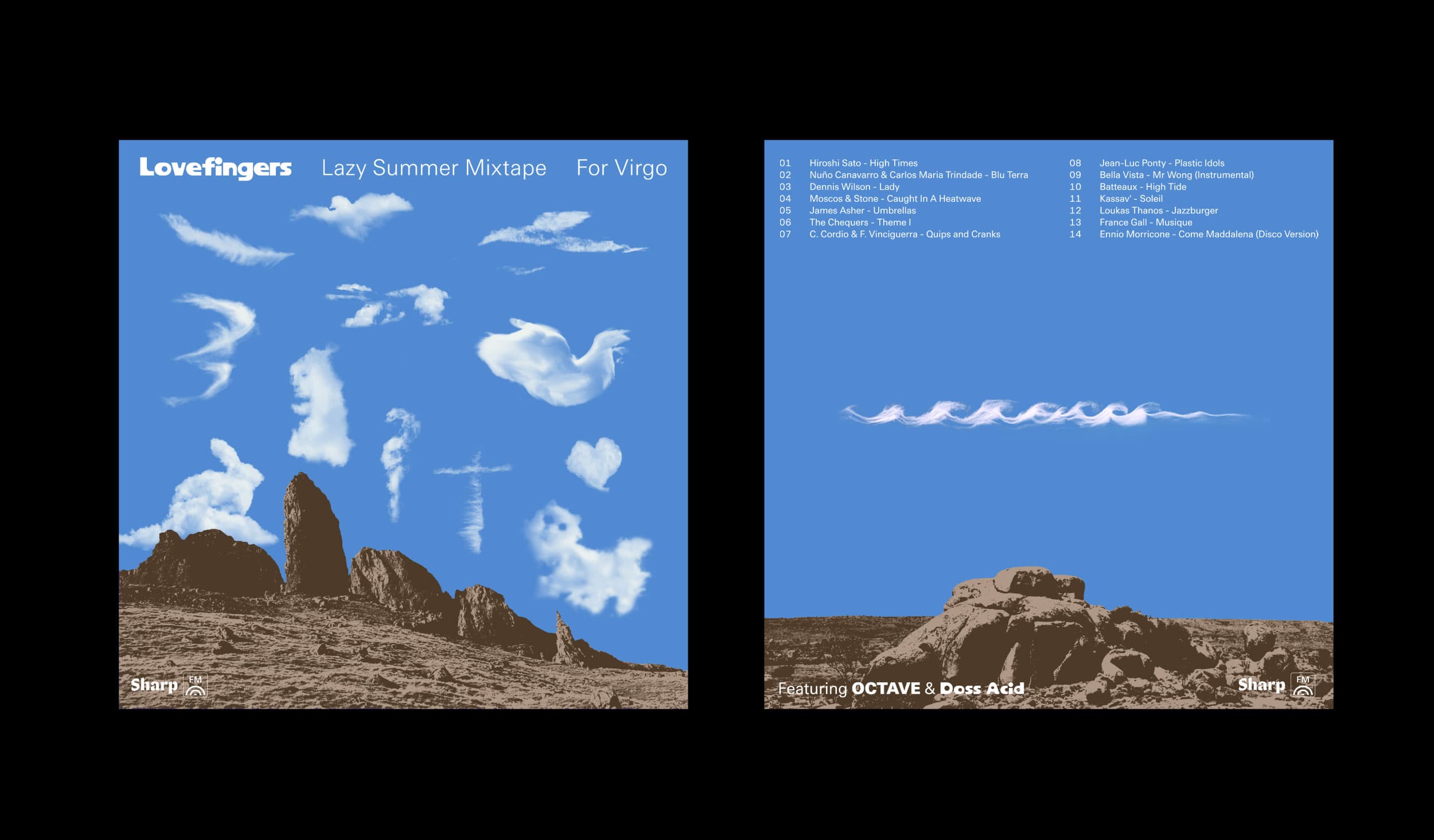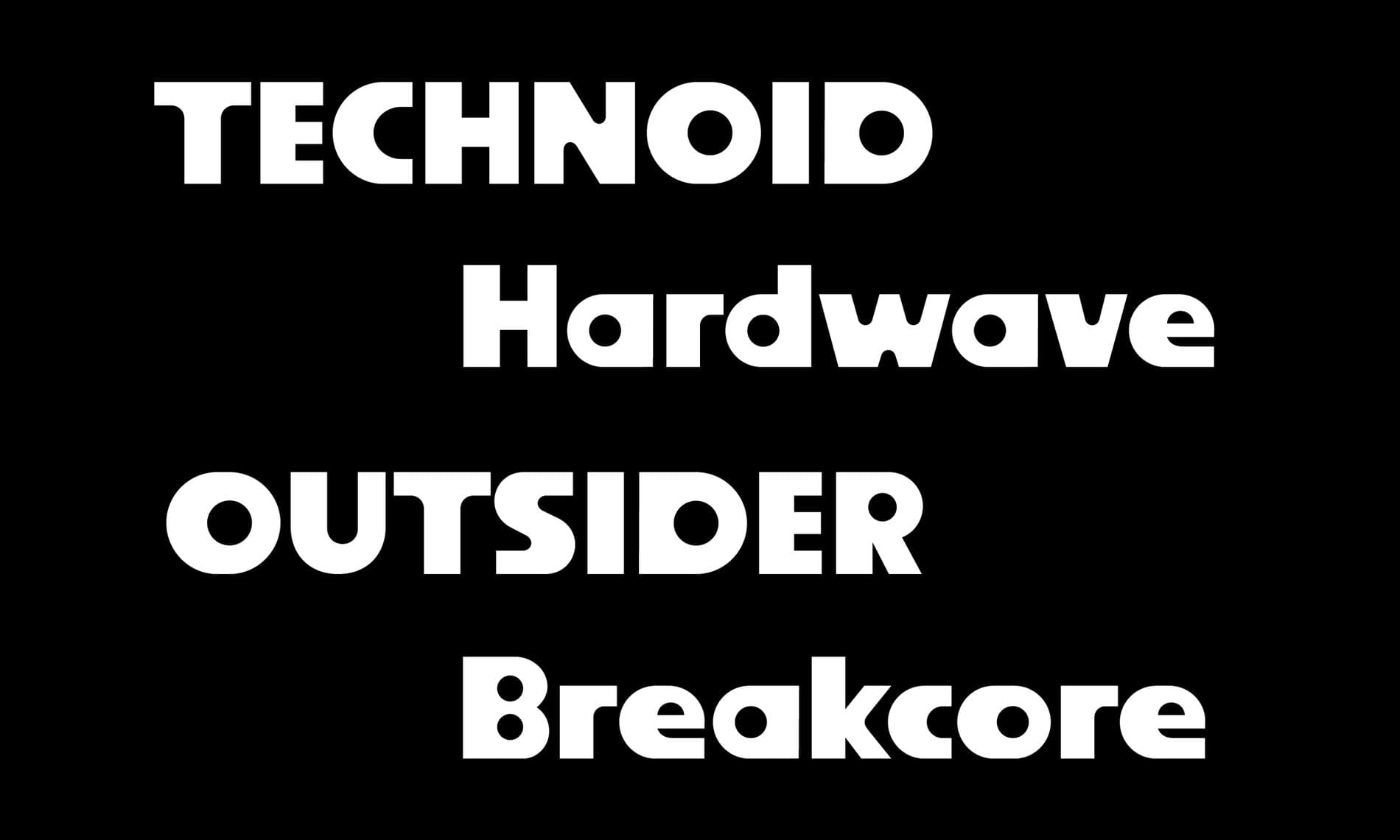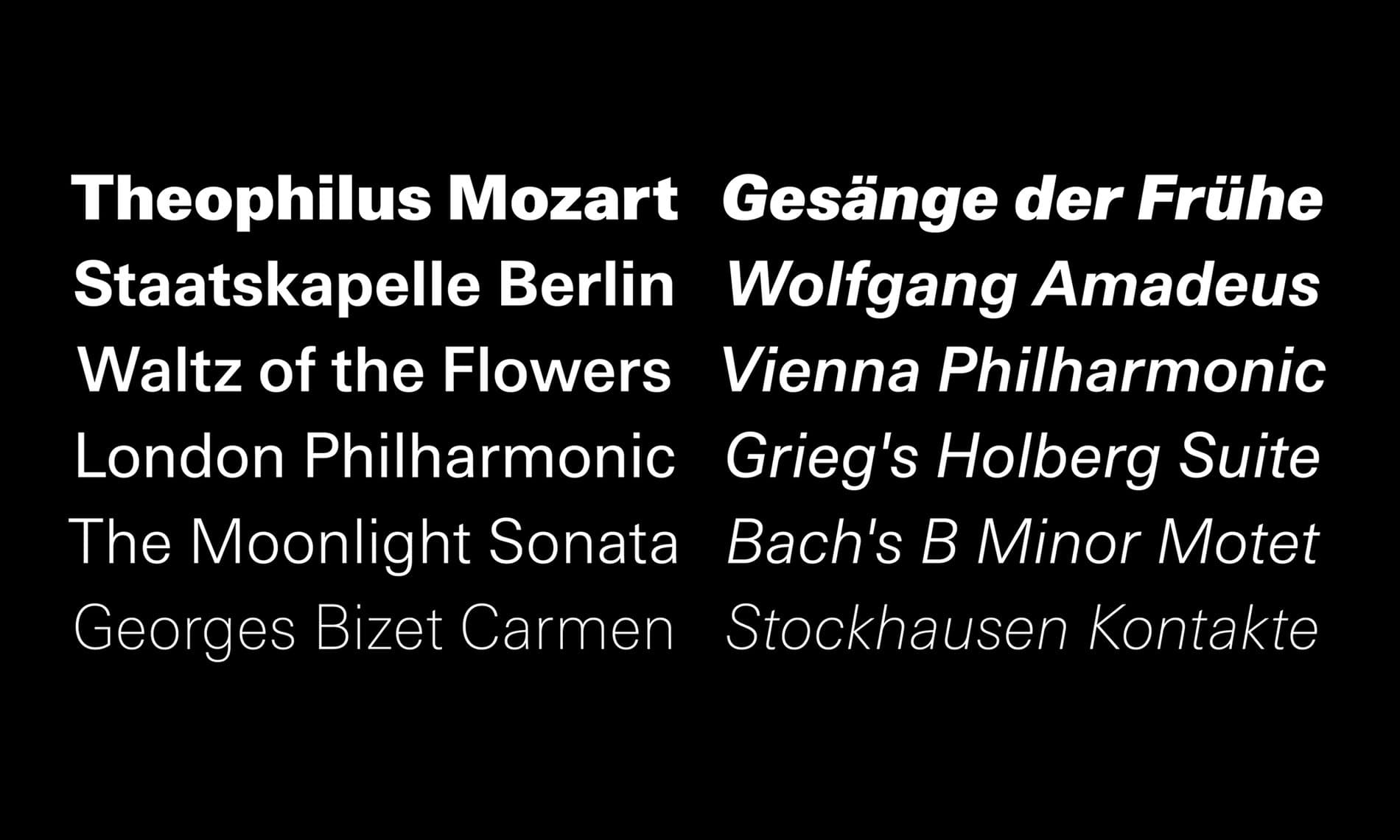
Pioneering selector Lovefingers delivers an easy going end-of-summer mix that gently moves us into autumn
Considering the diversity of his work life, Andrew "Lovefingers" Hogge's genre-hopping approach to DJing is no surprise. Songs make surprising connections with ease, and his sets are infused with the same warmth and enthusiasm that is readily apparent in conversation with him. For our 11th release, Andrew presents a mix that feels like we’re listening to records with him in his backyard in LA. We stare at the clouds together and find figures in the shapes. The music is cinematic, intimate, and easy to love.
“These are some of my all time favorite oddballs," Andrew says. "Not too much mixing, an ideal mix for just hanging out. Summertime vibes.”
To complement the day-dreamy feel, a playful assortment of figuratively-shaped clouds fill the sky of the mixtape cover. "Lovefingers" looks perfectly wild set in Marc Rouault's Acid, one of a few display-oriented typefaces under his Doss family umbrella. Balancing out the typography is Josh Finklea's latest sans serif, Octave, a class act in supportive restraint and construction that lets the clouds and Acid take center stage.
It wasn’t that long ago, but before digital algorithms and online radio gave us unending streams of music for any and all lifestyles, blogs mapped out a constellation of digital touchstones for those obsessed with music. Through the mid 2000s, Andrew obsessively posted a song a day from his site, also called Lovefingers. Over time, this coalesced into a years-long playlist that became an archive in its own right and a precursor for his expansive approach to DJing. Andrew has since developed the sort of multi-hyphenate career that touches pretty much every facet of music and design culture. He wears the hats of DJ, producer, label honcho, A&R manager, designer, and creative director, and his career presents the argument that doing so much doesn’t spread one’s creativity too thin; rather, each facet of his work intuitively informs the others, and over time, they’ve become more than the sum of their parts.
Last October, we published our first mix for Sharp FM to celebrate the publication of Josh Finklea's Octave, a sensibly modern sans serif that continues his iterative approach to type design. Taken as a whole, Josh's releases are erudite, yet irreverent, refinements of type classics for contemporary designers that advance legibility for virtually any context. Like its predecessors Centra and Post Grotesk, Octave foregrounds restraint, pragmatism, and utility. Fonts like these are easily overlooked in favor of showier display typefaces, but the iconic album artwork of ECM offers a convincing minimalist dialectic; Manfred Eicher's singular use of Univers—a forebear of Octave—defined an aesthetic that remains influential to this day. Here, the typography feels transparent, not invisible.
That being said, Octave's adaptive qualities quietly shine when paired with something loud. Acid, from Marc Rouault's forthcoming Doss family, takes cues from logos found in a book of Japanese hi-fi and electronic brands. Marc's fascination with the vernacular typography of musical subcultures—hi-fi audio, rave flyers, electronic music hardware—takes literal shape here. Acid enlivens the layout with its echoes of Memphis-era vibrancy, but its application here makes even more sense given its provenance.